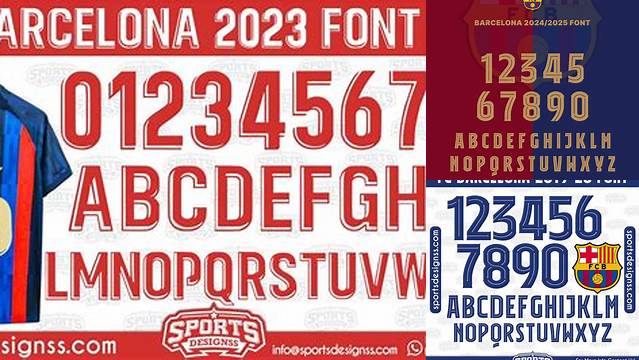
Download Barcelona Font 2026/23 Free - Fan Guide
Are you a design enthusiast, a football fanatic, or simply someone who appreciates the sleek aesthetics of modern sports branding? If so, you've probably been captivated by the iconic font used by FC Barcelona in their 2026/23 season kits. This font, with its distinctive lines and contemporary feel, has become synonymous with the club's image and is highly sought after by designers and fans alike. In this comprehensive guide, we'll delve into everything you need to know about the Barcelona font 2026/23, including where you can find it for free download, its key characteristics, and how you can use it in your own projects.
Unveiling the Barcelona Font 2026/23
The Barcelona font 2026/23 isn't just a typeface; it's a statement. It embodies the spirit of the club – bold, modern, and undeniably stylish. The font features a unique blend of sharp angles and smooth curves, giving it a dynamic and energetic appearance. Its clean lines ensure readability, while its distinctive character shapes make it instantly recognizable. This font has made its mark on the footballing world and has become an integral part of FC Barcelona's brand identity. Whether you are designing a fan-made poster, creating a digital art piece, or simply want to add a touch of Barcelona flair to your work, having access to this font can be incredibly valuable.
Key Characteristics of the Font
Let's dive deeper into what makes the Barcelona font 2026/23 so special. One of the most notable features is its geometric construction. The letters are built upon a grid system, giving them a sense of precision and balance. This geometric approach lends the font a modern and technical feel, perfect for conveying a sense of innovation and forward-thinking. At the same time, the subtle curves incorporated into the letterforms soften the overall appearance, making it approachable and friendly. This balance between sharpness and smoothness is what sets the Barcelona font apart.
Another key characteristic is its versatility. While it's primarily used for sports branding, its clean and modern design makes it suitable for a wide range of applications. From headlines and logos to posters and merchandise, the Barcelona font can add a touch of sophistication and style to any project. Its legibility also makes it a great choice for body text, ensuring your message is conveyed clearly and effectively. The font’s adaptability is a testament to its thoughtful design and makes it a valuable asset in any designer's toolkit. Furthermore, the specific weights and styles available within the font family can provide even greater flexibility, allowing you to tailor your typography to the specific needs of your project. For example, a bold weight might be perfect for headlines, while a lighter weight could work well for body text.
The Importance of Font in Branding
Before we get to the download details, let's talk about why fonts are so crucial in branding. Think about it: a font is more than just a way to display text. It's a visual element that communicates personality, emotion, and values. In the world of sports, where emotions run high and brand loyalty is paramount, the right font can make all the difference. The Barcelona font 2026/23 is a prime example of this. It perfectly captures the club's identity – dynamic, innovative, and prestigious. The font helps reinforce the club's image and create a strong visual connection with fans. This connection is vital for building brand recognition and fostering a sense of community.
A well-chosen font can also help a brand stand out from the competition. In a crowded marketplace, a unique and memorable typeface can be a powerful differentiator. The Barcelona font 2026/23 certainly achieves this, with its distinctive letterforms and modern aesthetic. It sets the club apart from its rivals and helps create a lasting impression on viewers. Whether it’s on jerseys, banners, or digital media, the font plays a crucial role in shaping the club’s visual identity. Moreover, the consistent use of a particular font across all branding materials helps reinforce brand recognition and create a cohesive look and feel. This consistency is key to building a strong and recognizable brand image.
The Barcelona font 2026/23 is more than just a typeface; it's a symbol of the club's identity and a testament to the power of design in sports branding. While the official font may not always be readily available for free download, there are plenty of resources where you can find similar fonts or fan-made versions that capture its essence. Whether you're a designer, a football fan, or simply someone who appreciates good typography, the Barcelona font 2026/23 can add a touch of style and sophistication to your projects. Remember to use fonts effectively, paying attention to legibility, font pairing, and hierarchy, to create visually appealing and engaging designs. So go ahead, download a similar font, and let your creativity soar!